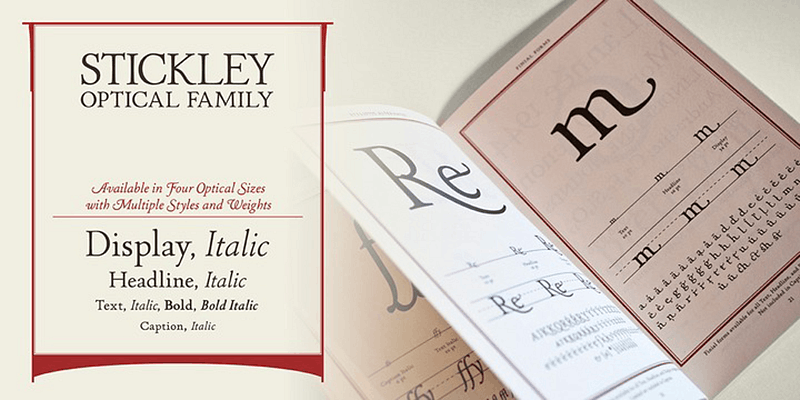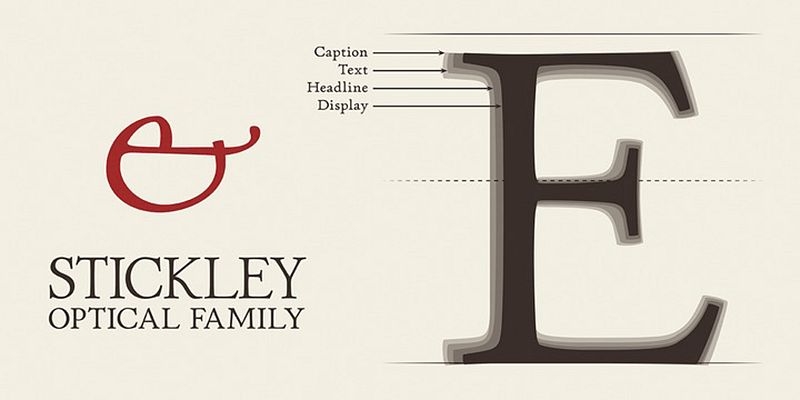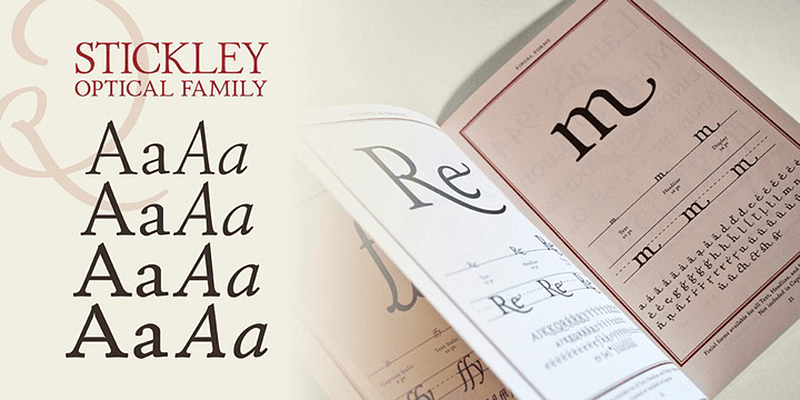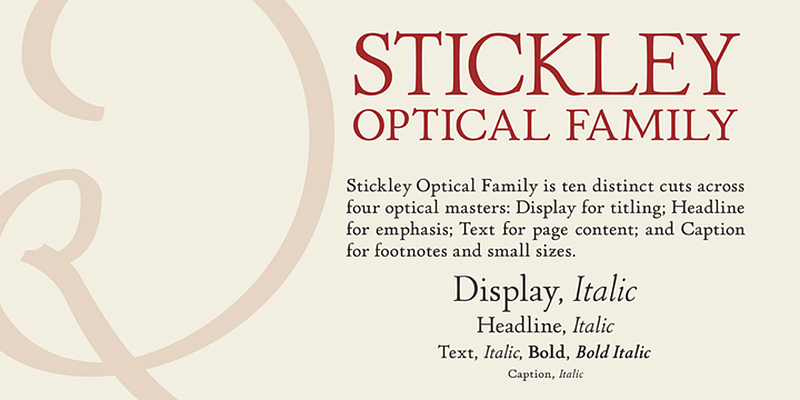
P22 Stickley Pro is an optical font family based on an humanist, old style rooted design with a contemporary execution. The font contains four optical masters—Text, Display, Headline, and Caption.
P22 Type Foundry specializes in historical typefaces inspired by art, history, and science. The company was created in 1994 in Buffalo, New York, by co-founders Richard Kegler and Carima El-Behairy. The breathtaking array of fonts — which have appeared in films and on numerous commercial products — offers an impressive cornucopia of styles for companies and designers. The P22 Type Foundry collection focuses on historical letterforms that would never have been available in digital form otherwise.